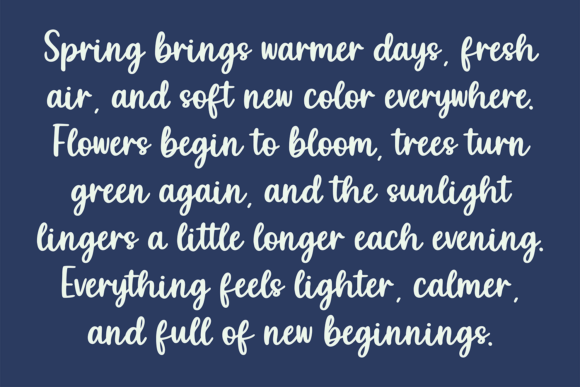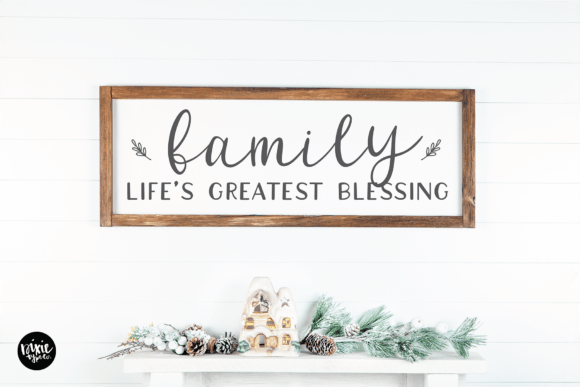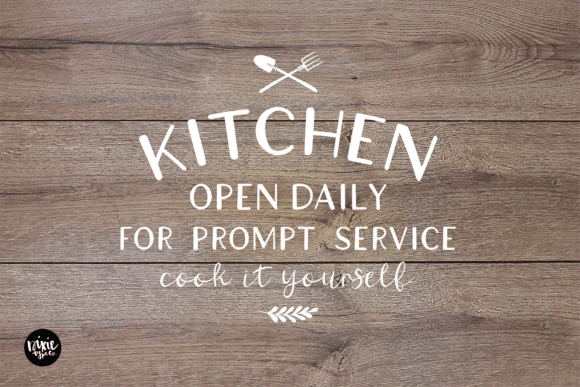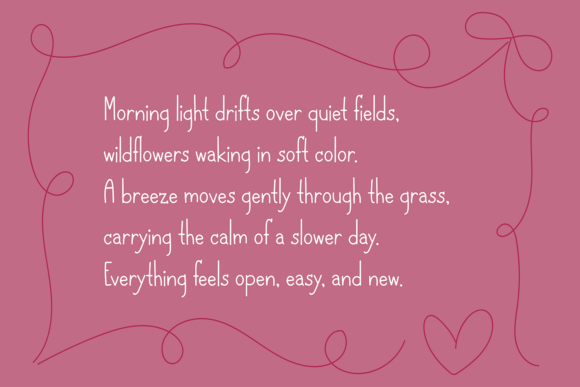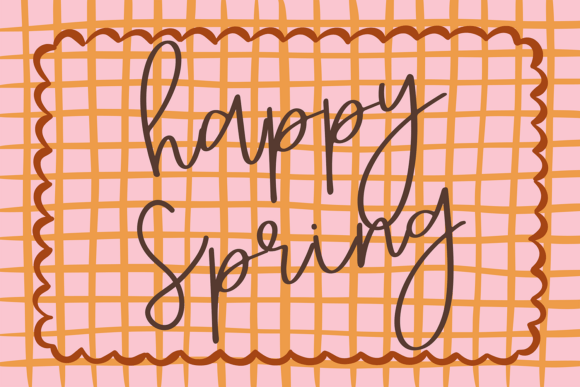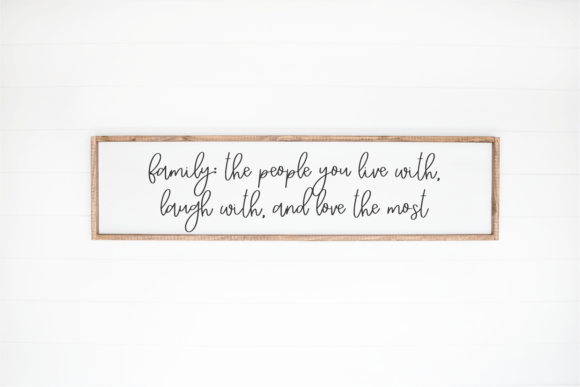
Easter Bundle Font: A Beautiful Collection for Spring Designs
Ah, Easter design season is upon us! I still remember the time I was working on an Easter-themed project for a client, and I just couldn’t find the perfect font to match the playful and modern vibe they wanted. I scoured the internet, tried out dozens of fonts, but nothing seemed quite right. That was until I stumbled upon the Easter Bundle Font. It was love at first sight! ✨
What’s Included in the Easter Bundle Font?
This fantastic bundle includes a mix of handlettered brush script fonts and clean sans serif fonts, making it perfect for a wide range of design projects, from Cricut crafts and Easter signs to t-shirts and digital designs. The fonts are designed with a soft, playful, and modern feel, ensuring your seasonal designs stand out.
Honest Review: The Good and the Great
I’ve had the pleasure of working with the Easter Bundle Font, and here’s what I think:
- ✨ Variety of fonts: The bundle includes a beautiful selection of fonts that cater to different design needs and preferences.
- 💕 Aesthetic appeal: The fonts have a unique, handcrafted feel that adds a personal touch to any design.
Now, no font is perfect, and there are a few minor quirks to be aware of:
- 🤔 Limited multilingual support: While the fonts cover a good range of characters, they might not support all languages or special characters.
- ⚠️ Some fonts require manual kerning: For certain design projects, you might need to adjust the kerning manually to achieve the perfect look.
The Story Behind the Easter Bundle Font
The Easter Bundle Font was created with the goal of providing designers, crafters, and hobbyists with a versatile and beautiful collection of fonts for their spring designs. Inspired by the joy and playfulness of the Easter season, the fonts are designed to bring a touch of whimsy and modern style to any project.